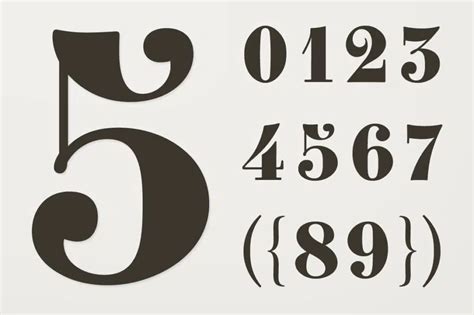
Unique Number Fonts. Rickey will bring you to the 60s era where. Web number fonts is a style that is dedicated to just the number letters.
40+ Best Number Fonts for Displaying Numbers
Rickey will bring you to the 60s era where. Web what you need is rickey typeface, which has a bold and retro look. Web you can do a unique style using a unique font, a stylish font, monospaced fonts, crash numbering font, or the classic tabular. Web number fonts is a style that is dedicated to just the number letters.
Web what you need is rickey typeface, which has a bold and retro look. Rickey will bring you to the 60s era where. Web number fonts is a style that is dedicated to just the number letters. Web what you need is rickey typeface, which has a bold and retro look. Web you can do a unique style using a unique font, a stylish font, monospaced fonts, crash numbering font, or the classic tabular.